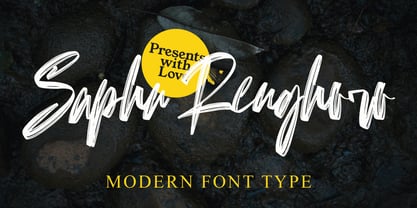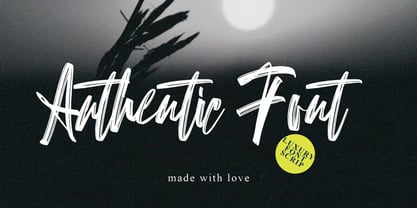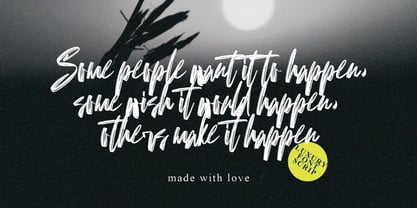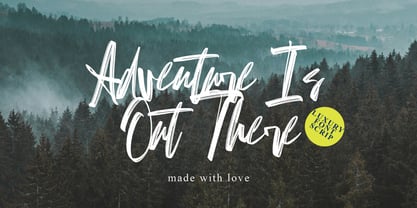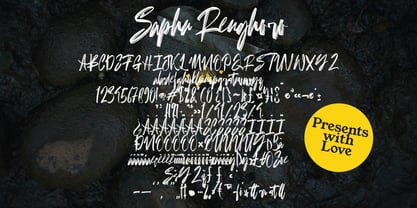
Saphu Renghoro
von Pineungtype misinklab
Die Schriftfamilie Saphu Renghoro wurde von Beni Saswita entworfen und von Pineungtype misinklab veröffentlicht. Saphu Renghoro enthält 1 Stile. Mehr über diese Familie
Saphu Renghoro with new style, this font will perfect for many different project ex: quotes, logo, blog header, poster, banding, letter, invitation, stationery, etc...
Designer: Beni Saswita
Foundry: Pineungtype misinklab